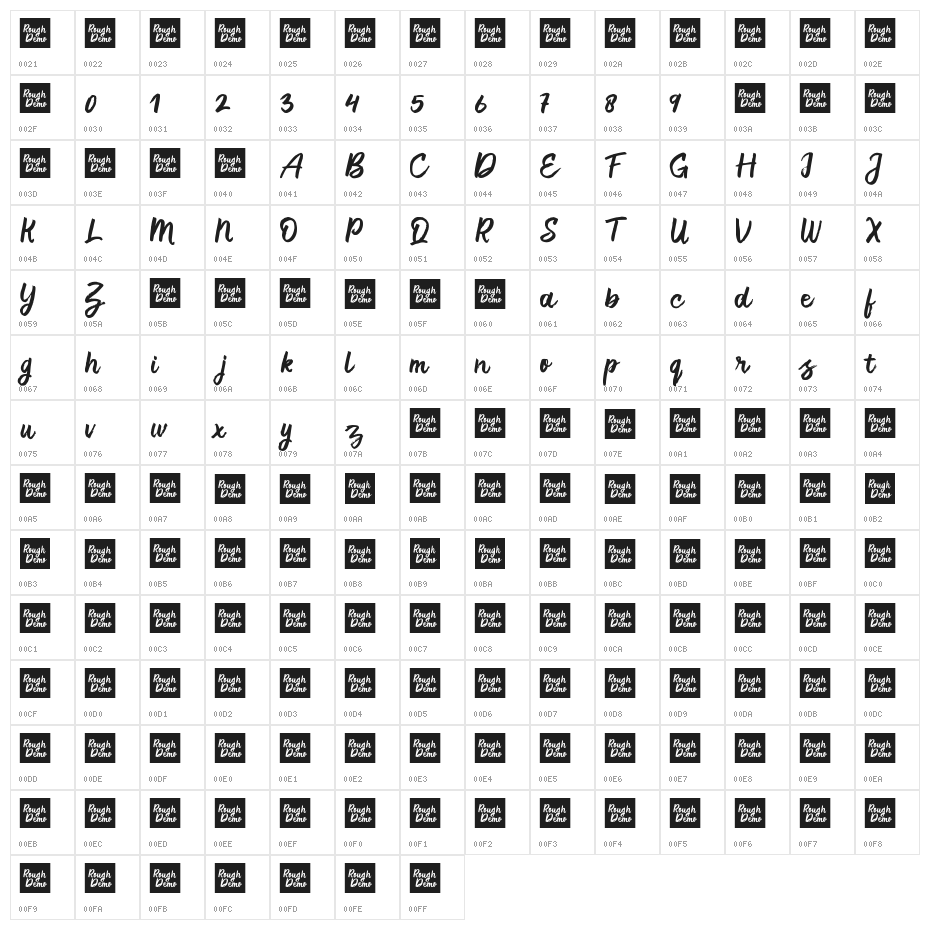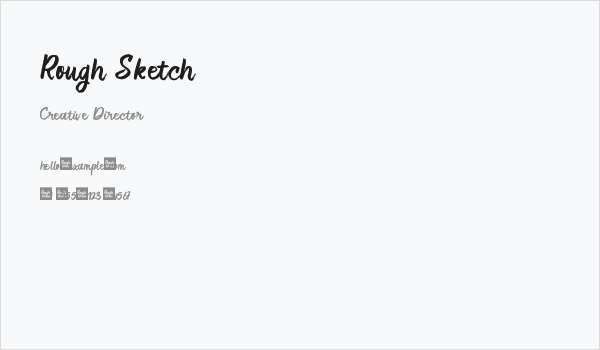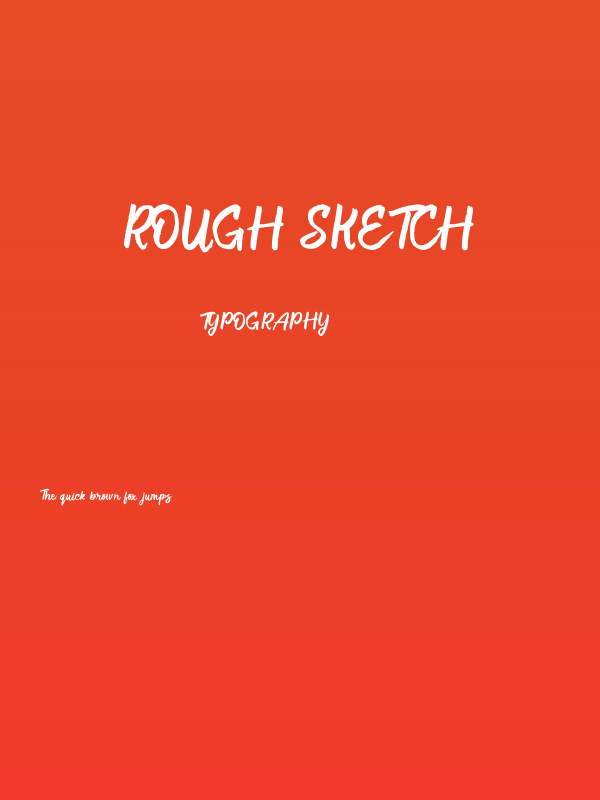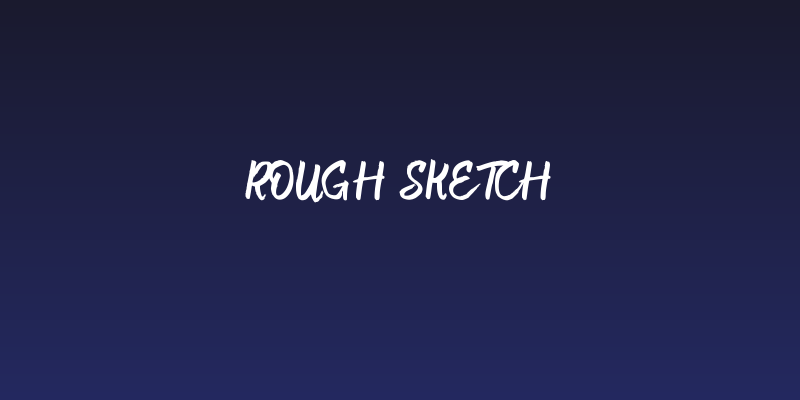
Rough Sketch Font
Rough Sketch Description
This font exudes a dynamic and energetic style, characterized by its brush-like strokes that convey a sense of movement and fluidity. The letters are bold and slightly slanted, giving them a casual yet artistic appearance. The uppercase and lowercase letters maintain a consistent flow, with varying stroke thickness that adds a hand-drawn feel. The numbers and special characters follow the same aesthetic, ensuring uniformity across all glyphs. This font is ideal for projects that require a personal touch or an informal vibe, such as invitations, posters, or branding materials.
Proposed ProjectsIdeal for invitations, posters, branding, and any project needing a personal, artistic touch.